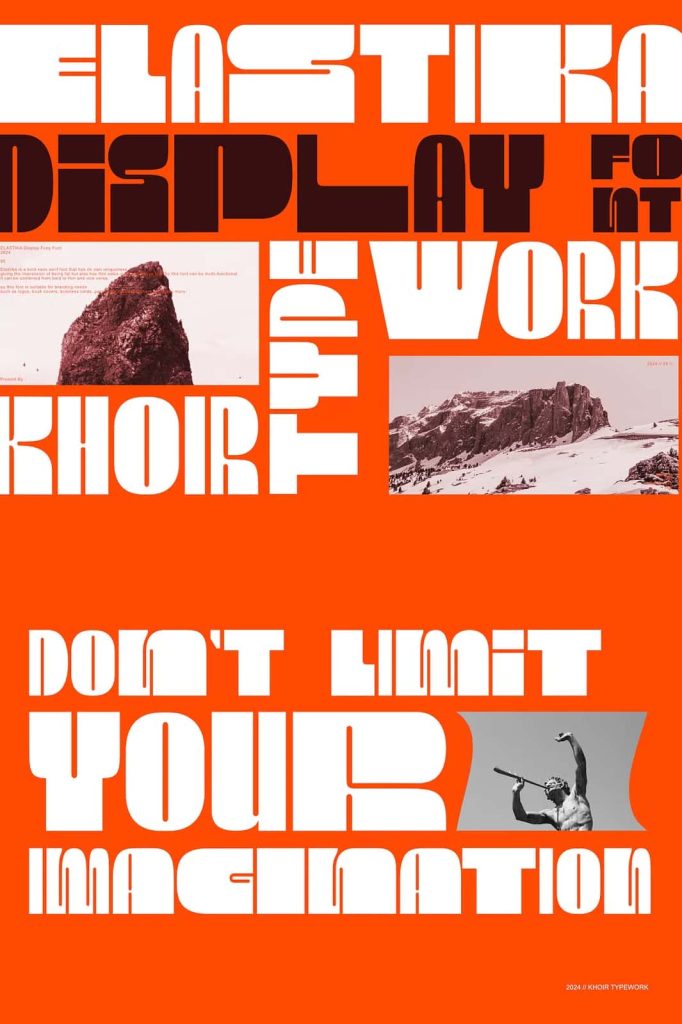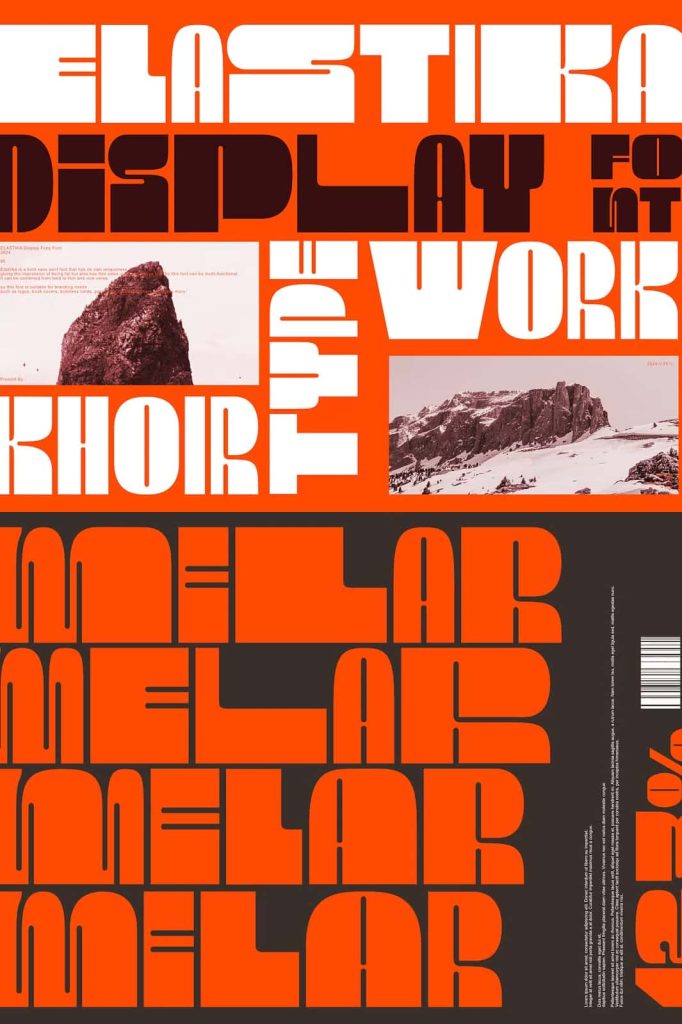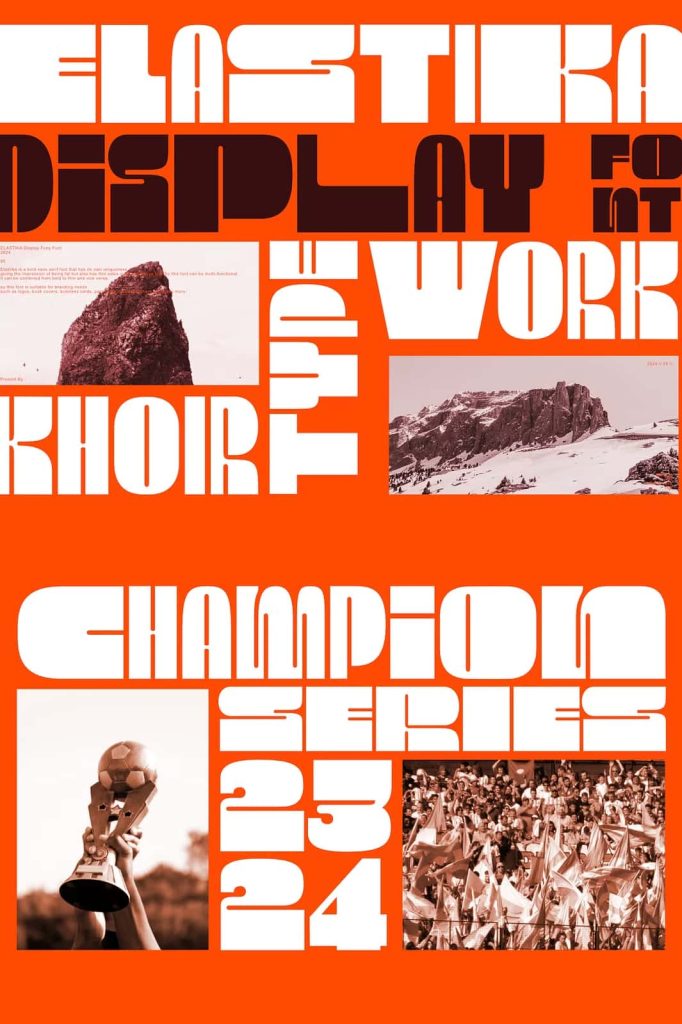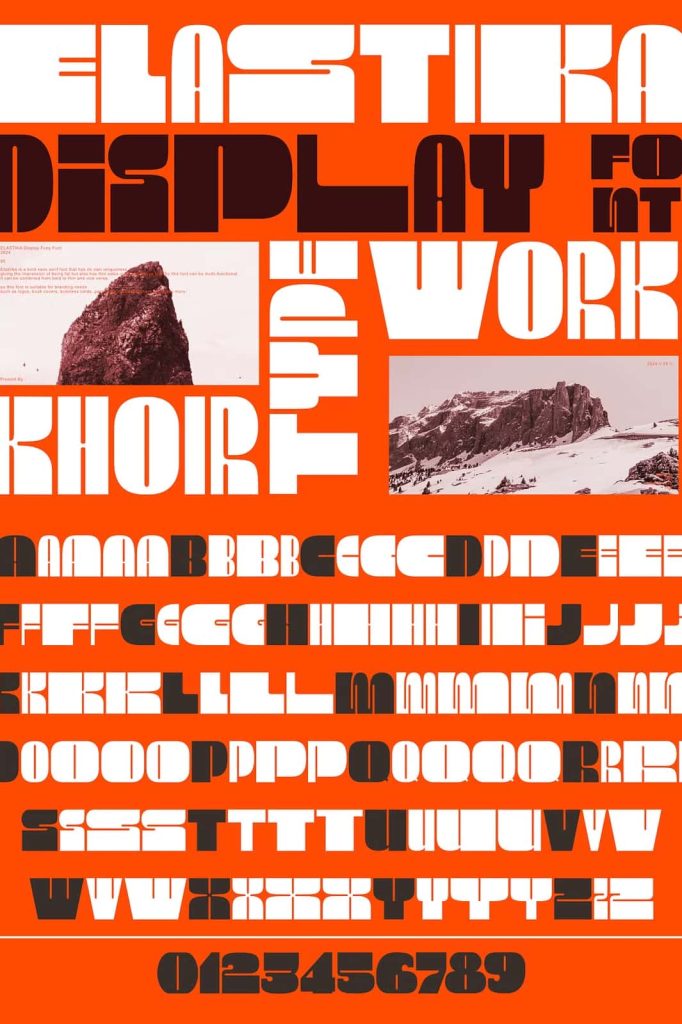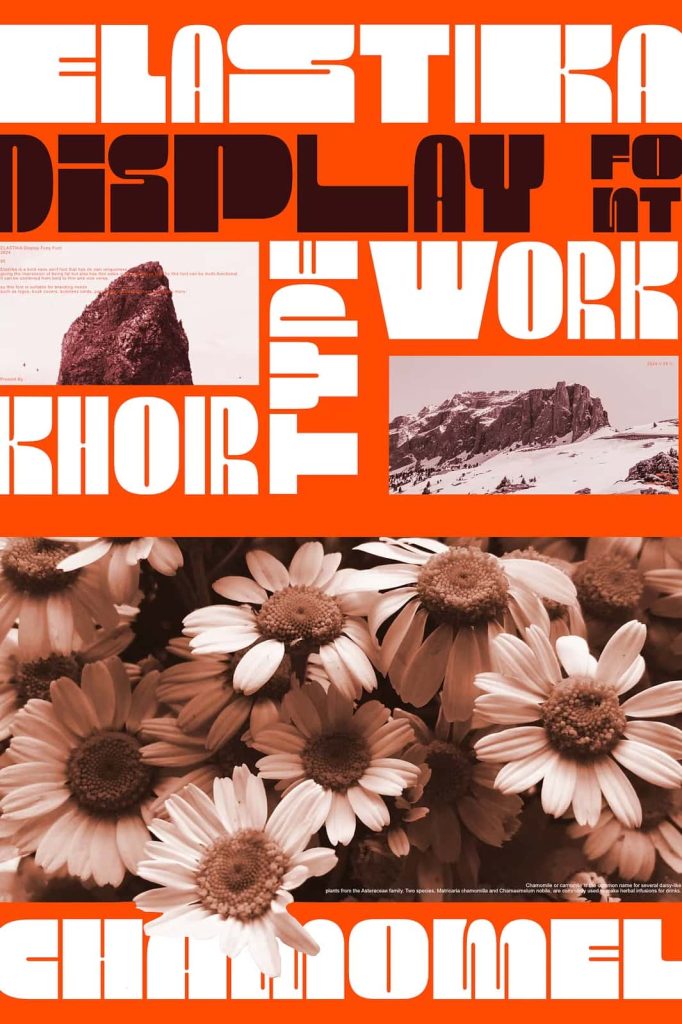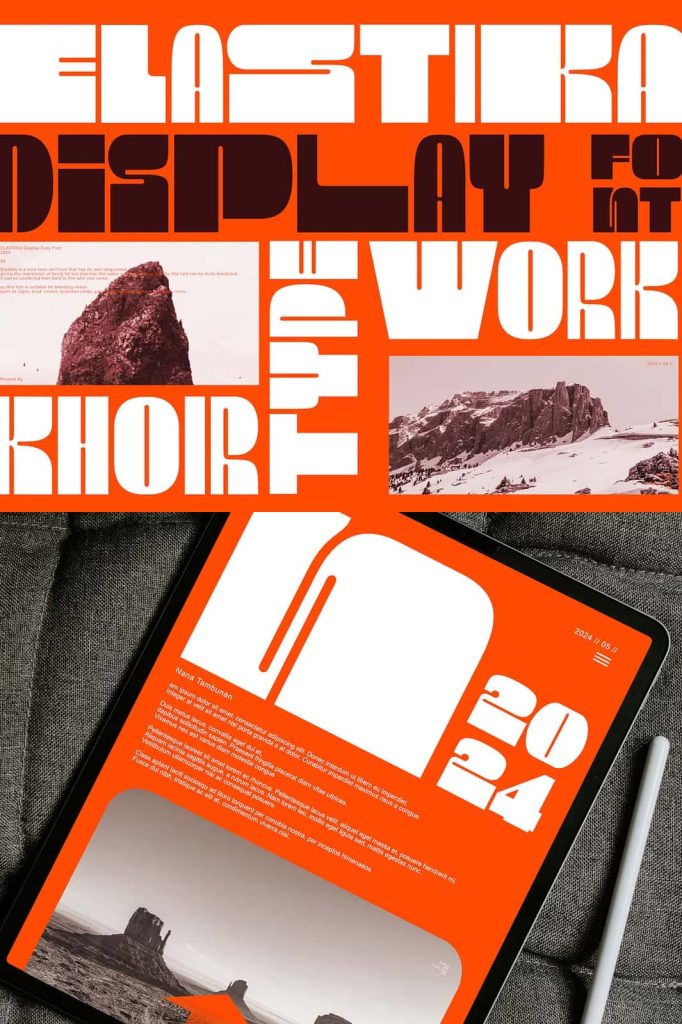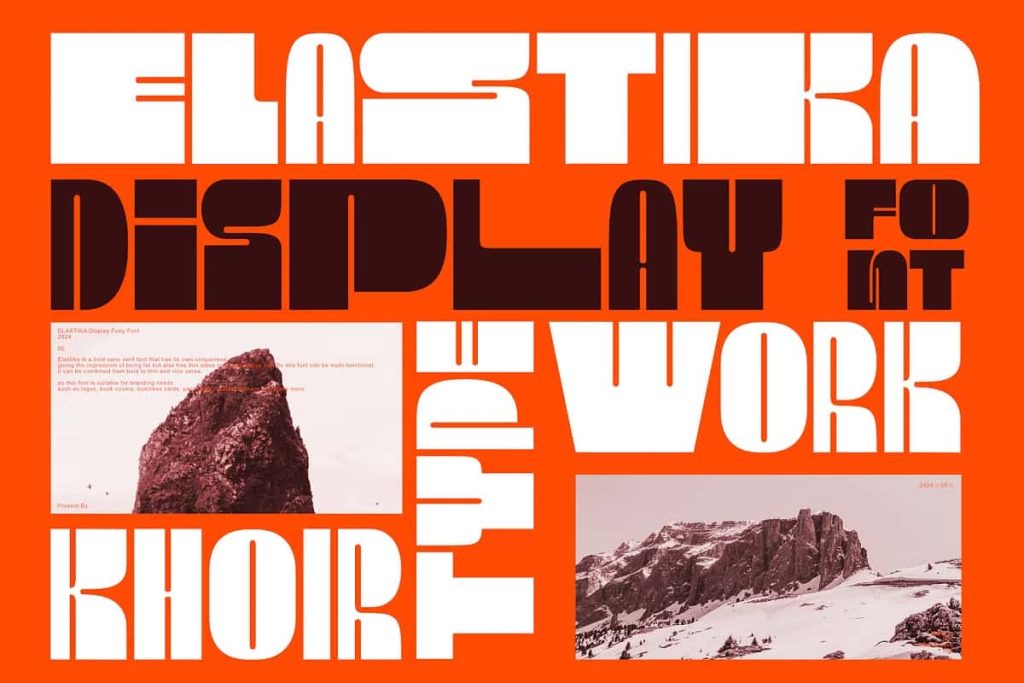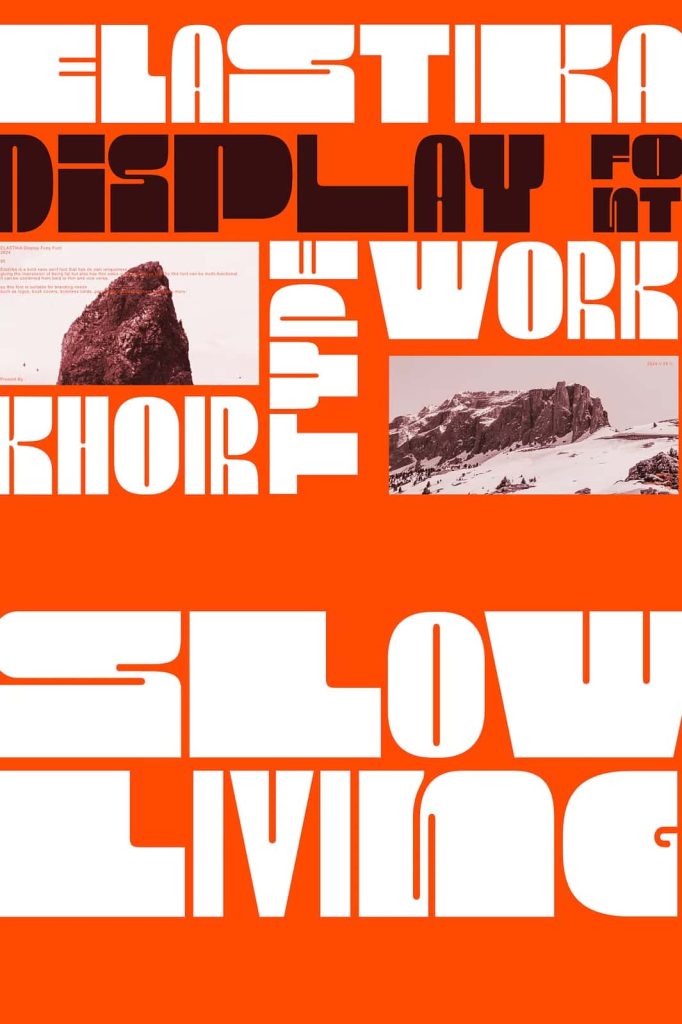
Bold sans serif has its own uniqueness, giving a fat impression but also has the advantage of being thinner in its alternative fonts. So this font can be multifunctional, it can be combined from thick to thin and vice versa